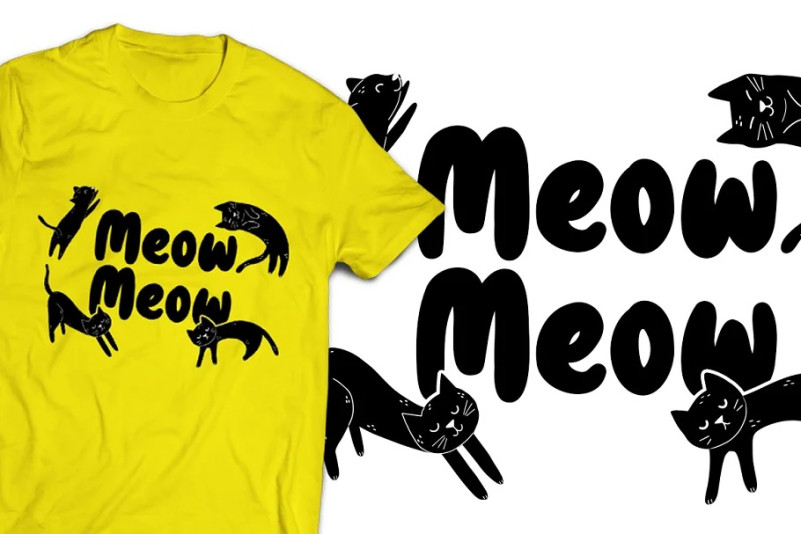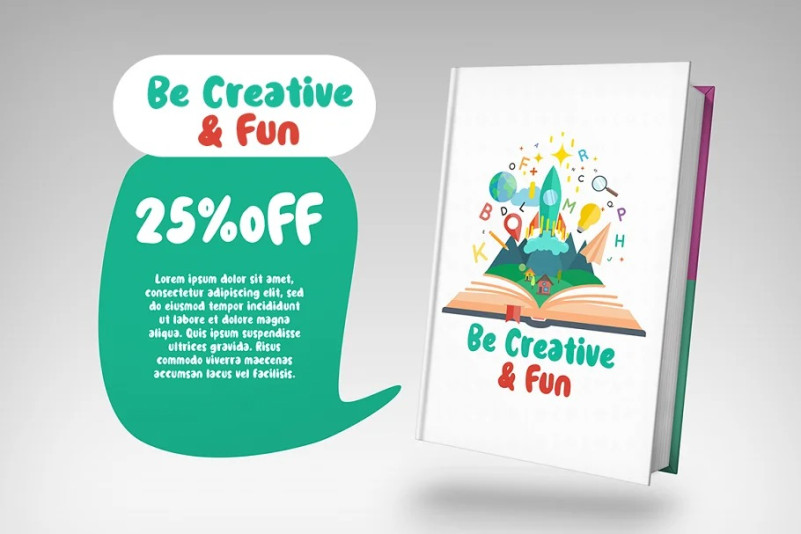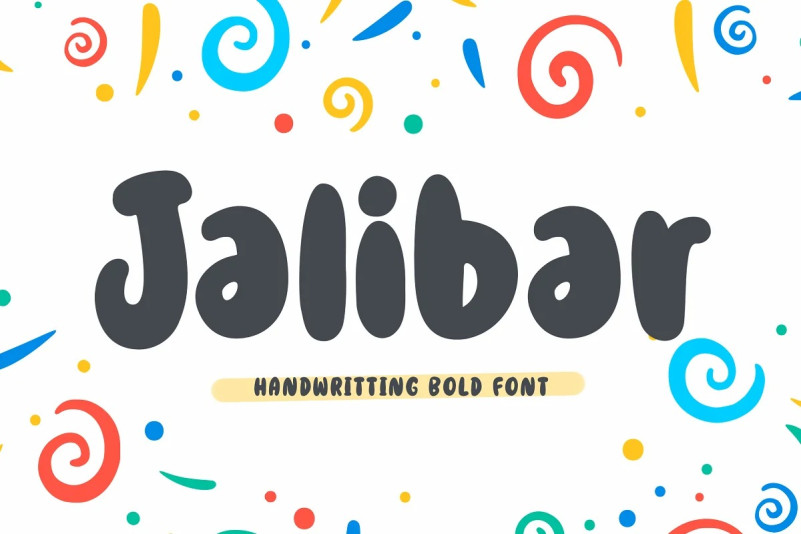
Jalibar Font
Introducing Jalibar handwriting bold font, a new font with the style of the fun bounce and bold. Which is you can create a cute and fresh design.
Jalibar is very suitable for logo design, kids t-shirts, birthday cards, cover book, magazine, flyer, quotes, packaging, and of course much more.